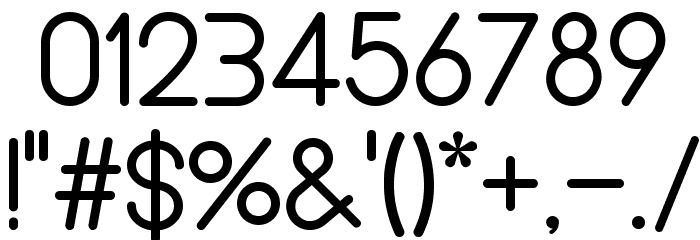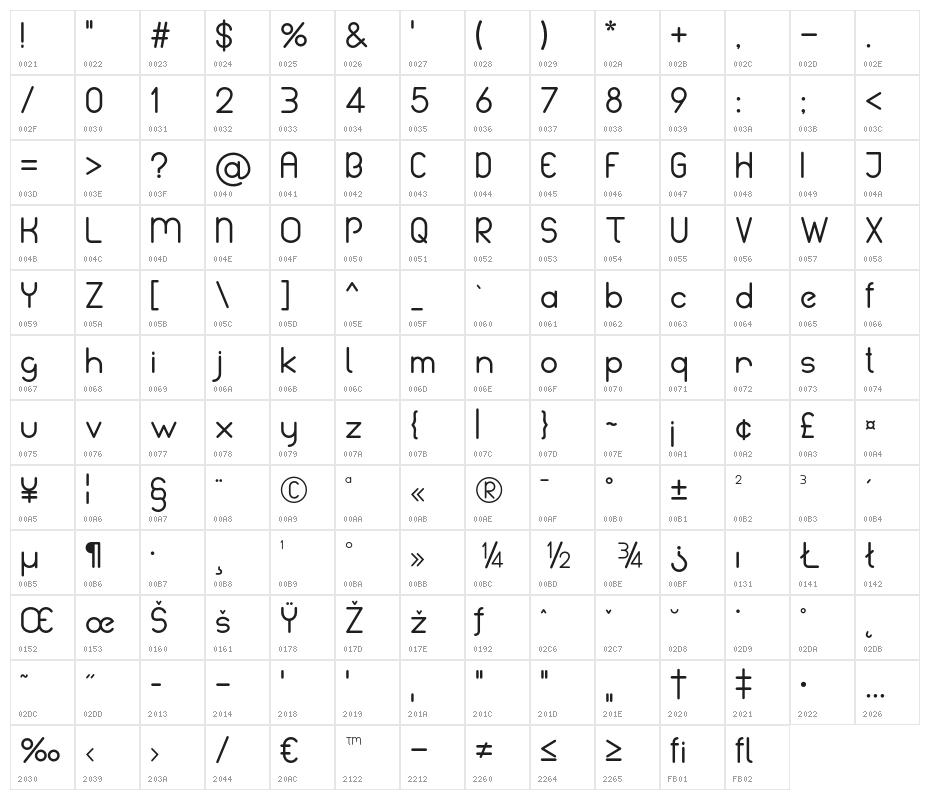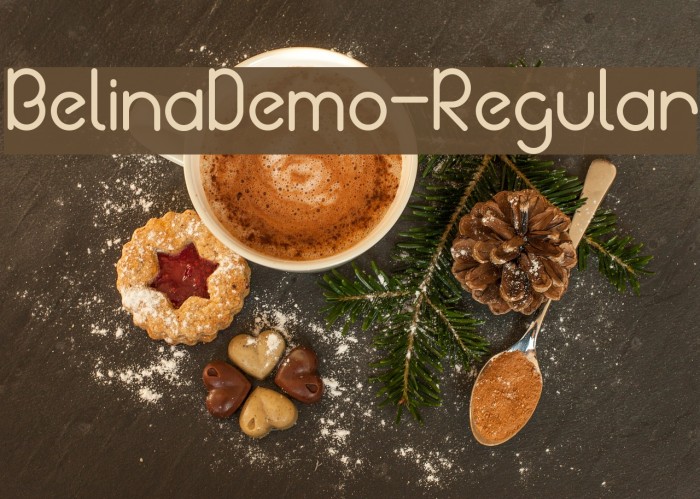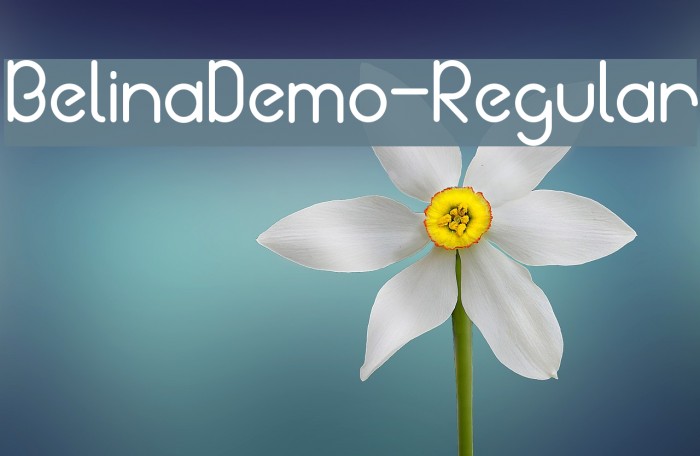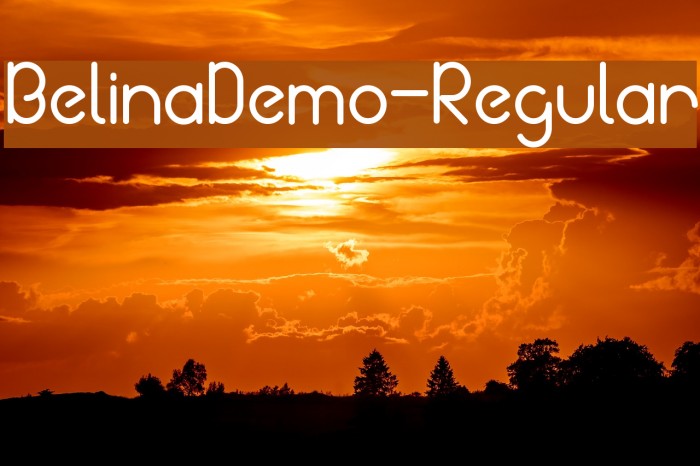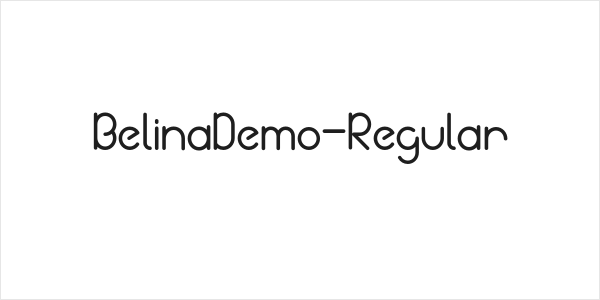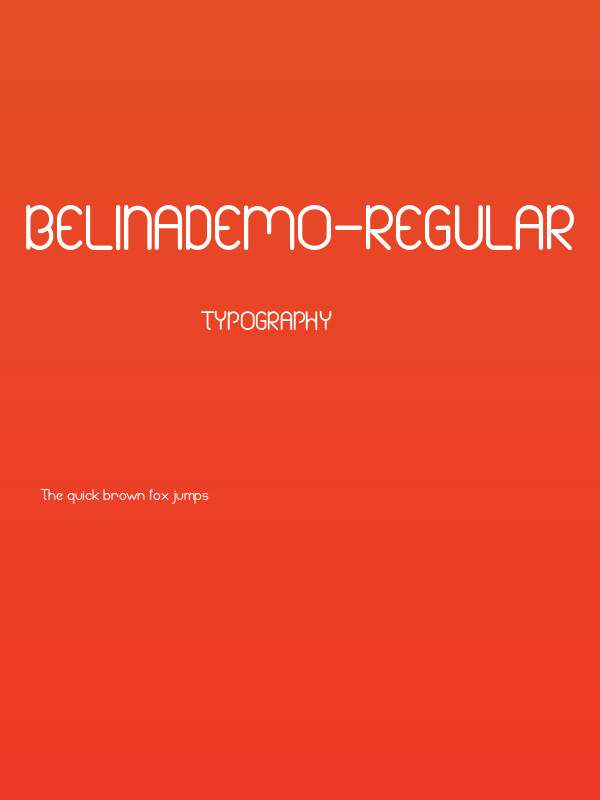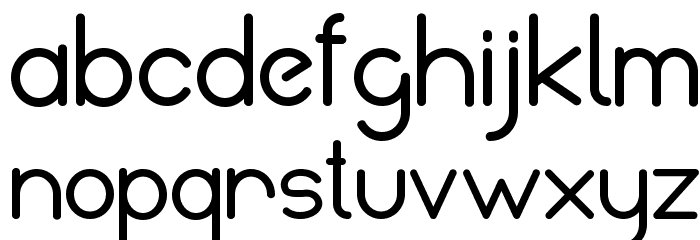
BelinaDemo-Regular Font
BelinaDemo-Regular Description
This font features a clean and modern design with rounded edges, giving it a friendly and approachable appearance. The characters are evenly spaced with a consistent stroke width, creating a harmonious and balanced look. The uppercase and lowercase letters maintain a uniform style, while the numerals and special characters complement the overall aesthetic. Its simplicity and clarity make it versatile for various applications.
| Proposed Projects | Ideal for branding, advertising, web design, and user interfaces where a modern and friendly appearance is desired. |